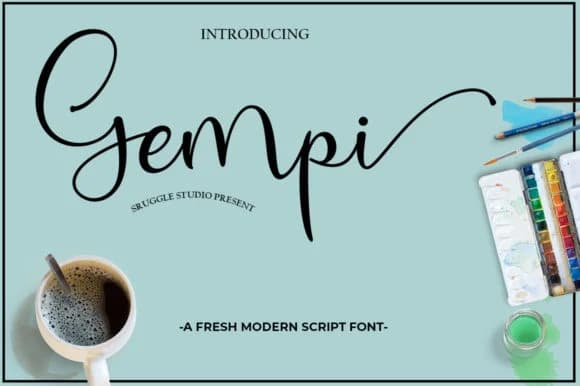
There's a natural grace to this typeface that feels both polished and genuinely human at the same time. Gempi, created by Struggle Studio, channels a modern calligraphic sensibility that walks the line between formal sophistication and approachable warmth.
This script thrives whenever you need your design to carry real personality and character. Wedding invitation suites benefit from its flowing letterforms and ornamental swashes, creating the kind of first impression that sets the tone for the whole event. Boutique cosmetics and skincare brands find it ideal for luxury packaging that conveys genuine craft and attention to detail. Restaurant menus and wine lists look perfectly at home in its expressive letterwork, while social media graphics gain immediate presence and stopping power through its distinctive character. The font includes multiple alternates, giving you the ability to swap stylistic variations throughout a single word or line, creating custom lettering that feels one-of-a-kind rather than pulled straight from a template.
Pair Gempi with a clean, measured sans-serif such as Montserrat or Inter when you need functional body copy supporting the elegance of your display headlines. It works brilliantly on its own as a display font, anchoring entire brand identities. Get it on Creative Fabrica whenever you're ready to start building with a script that looks effortlessly sophisticated and considered.
Gempi Font is a script font that shines as a display or heading face. Pair it with a clean sans-serif or serif font for body text β the contrast creates a clear hierarchy while the two styles stay balanced and easy to read.